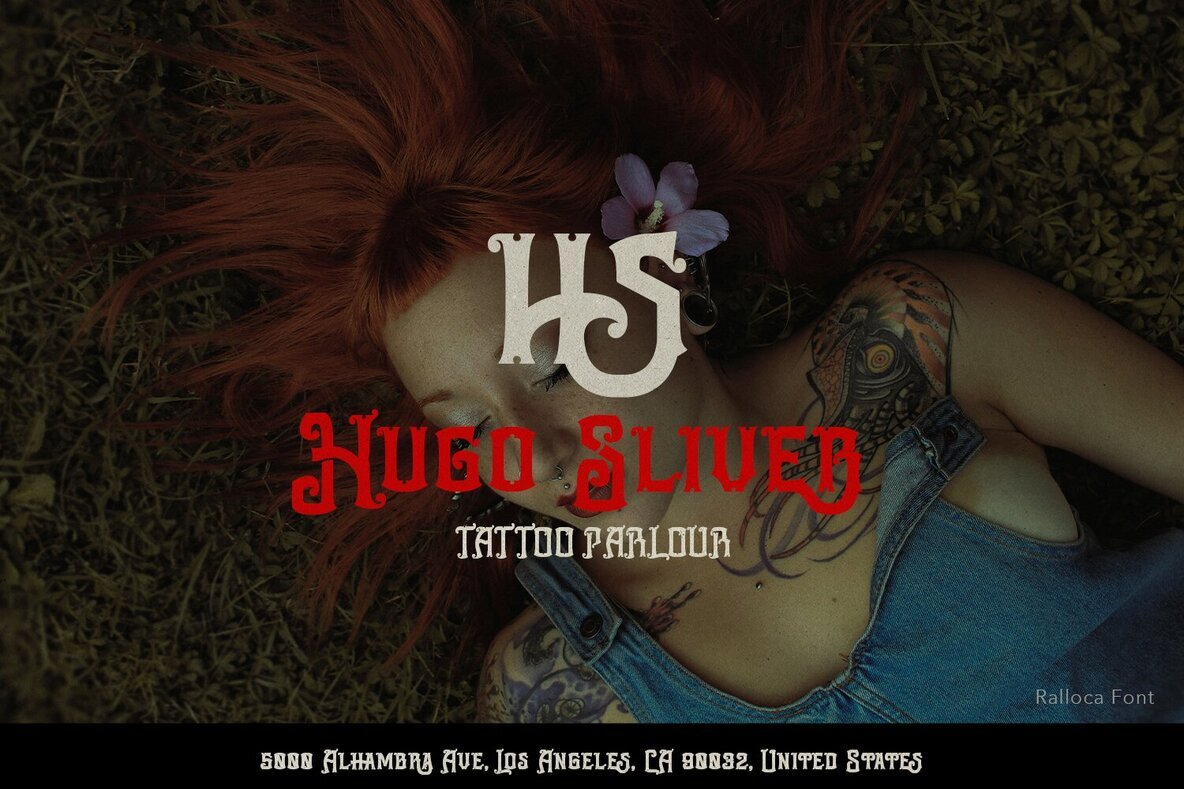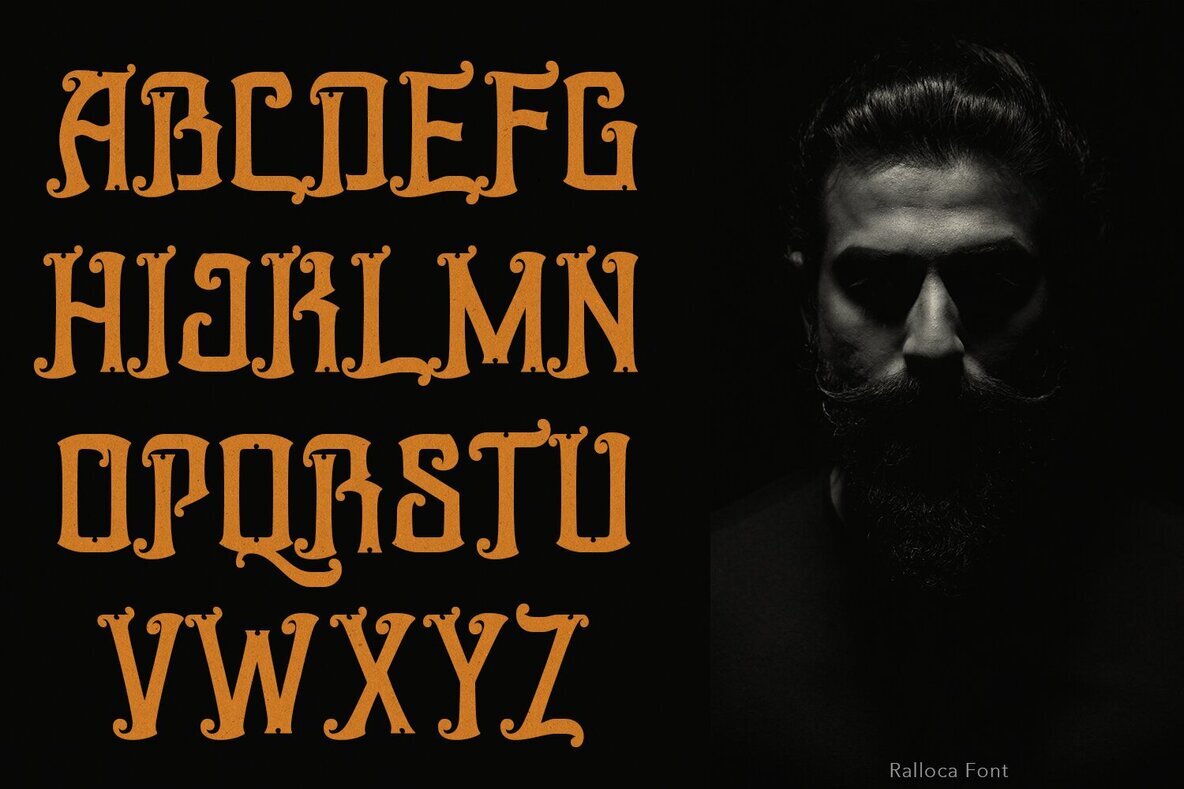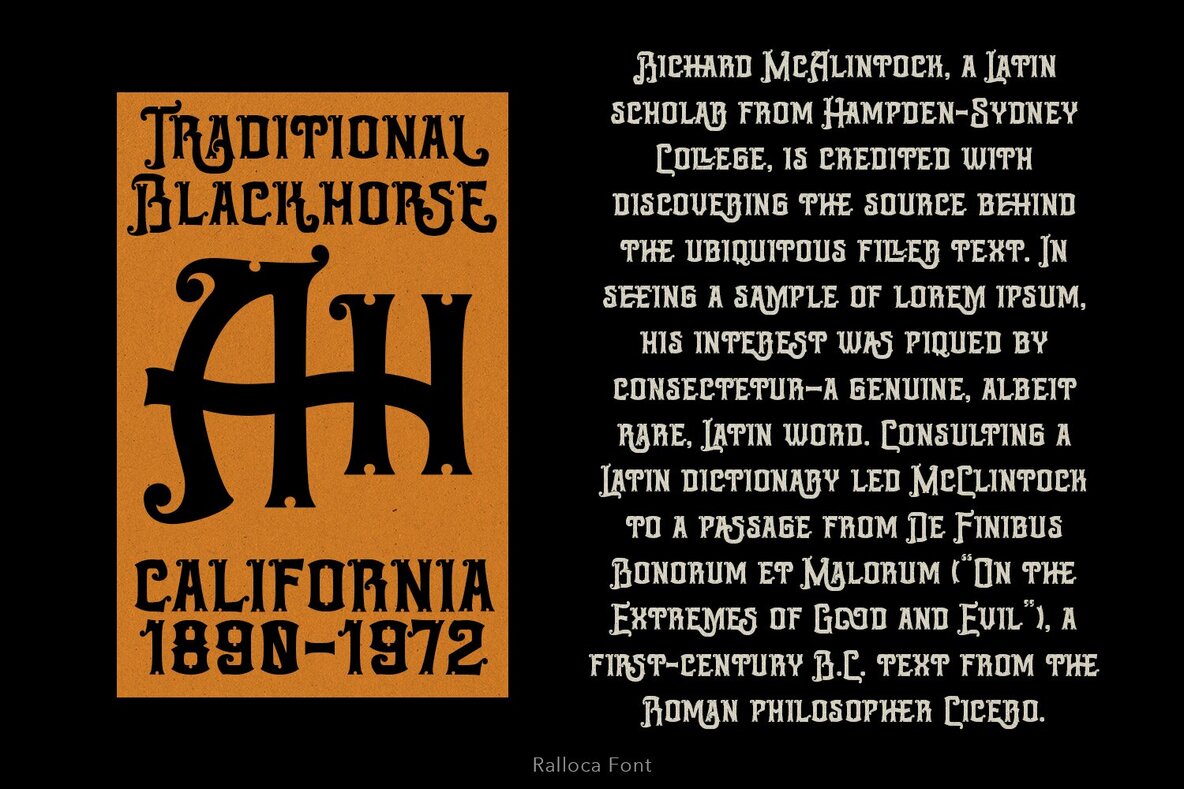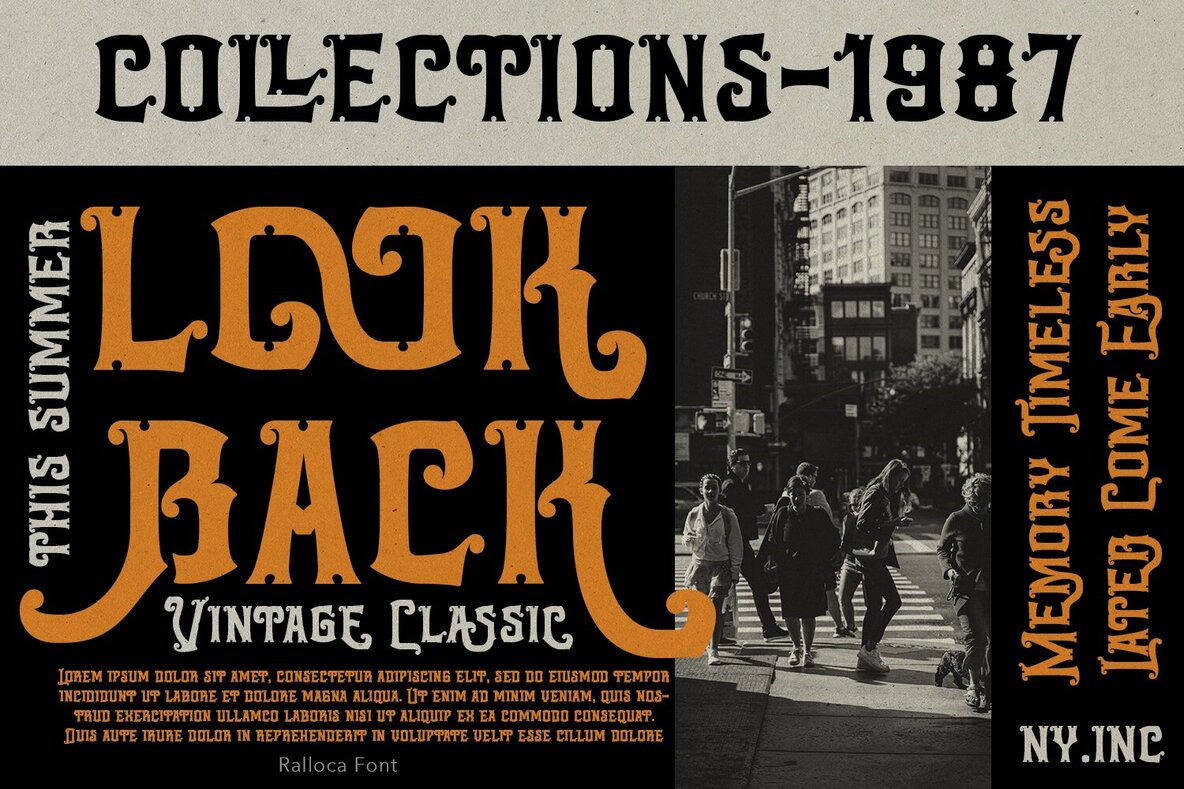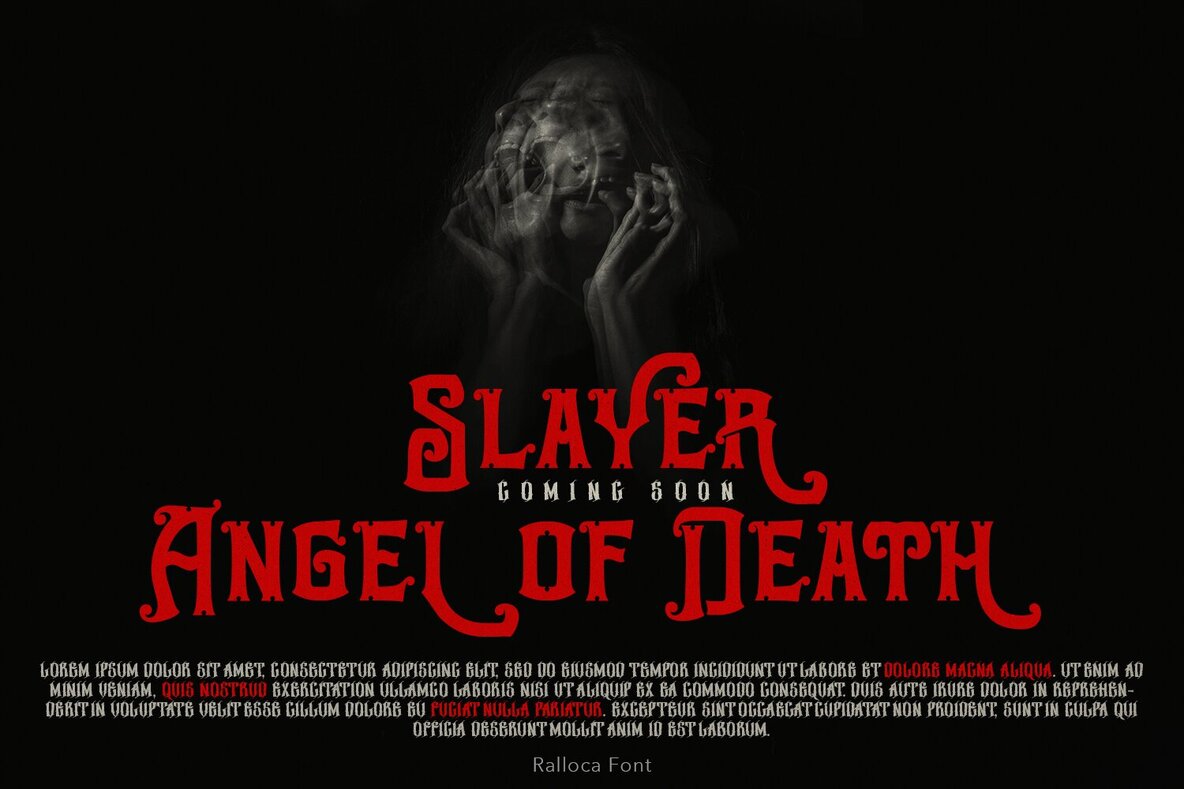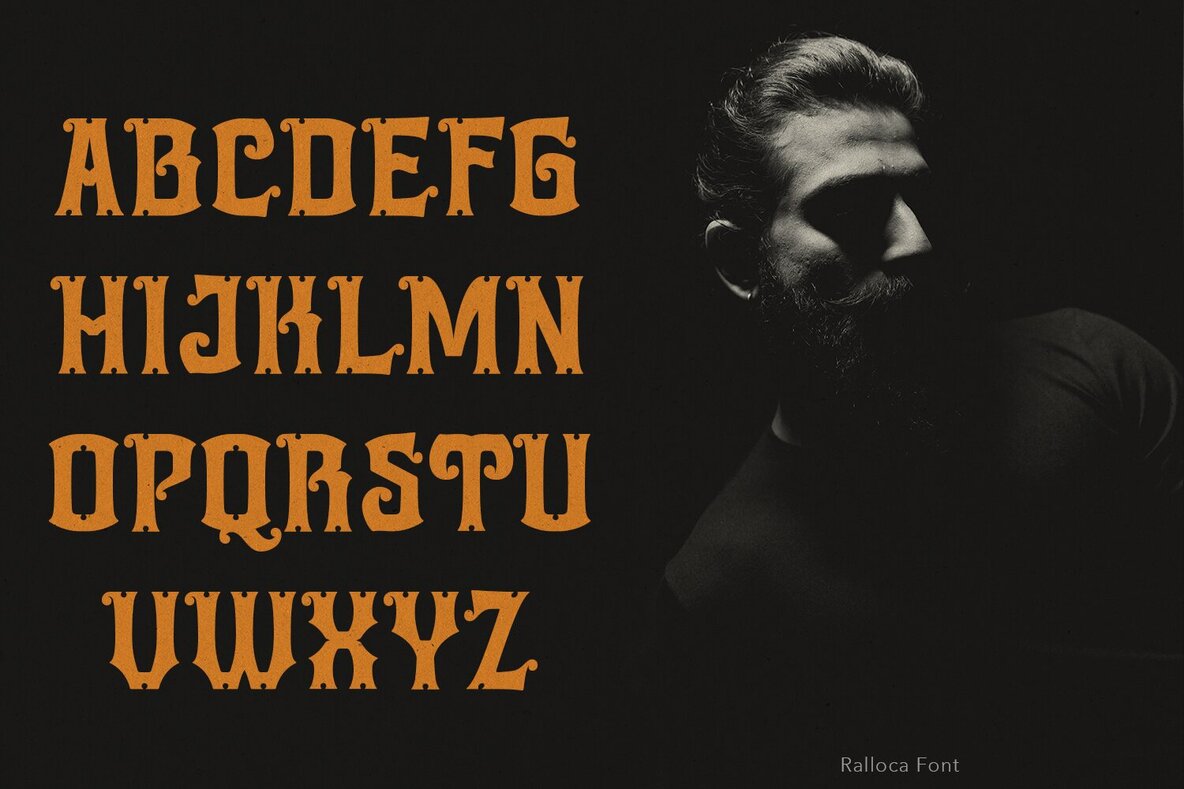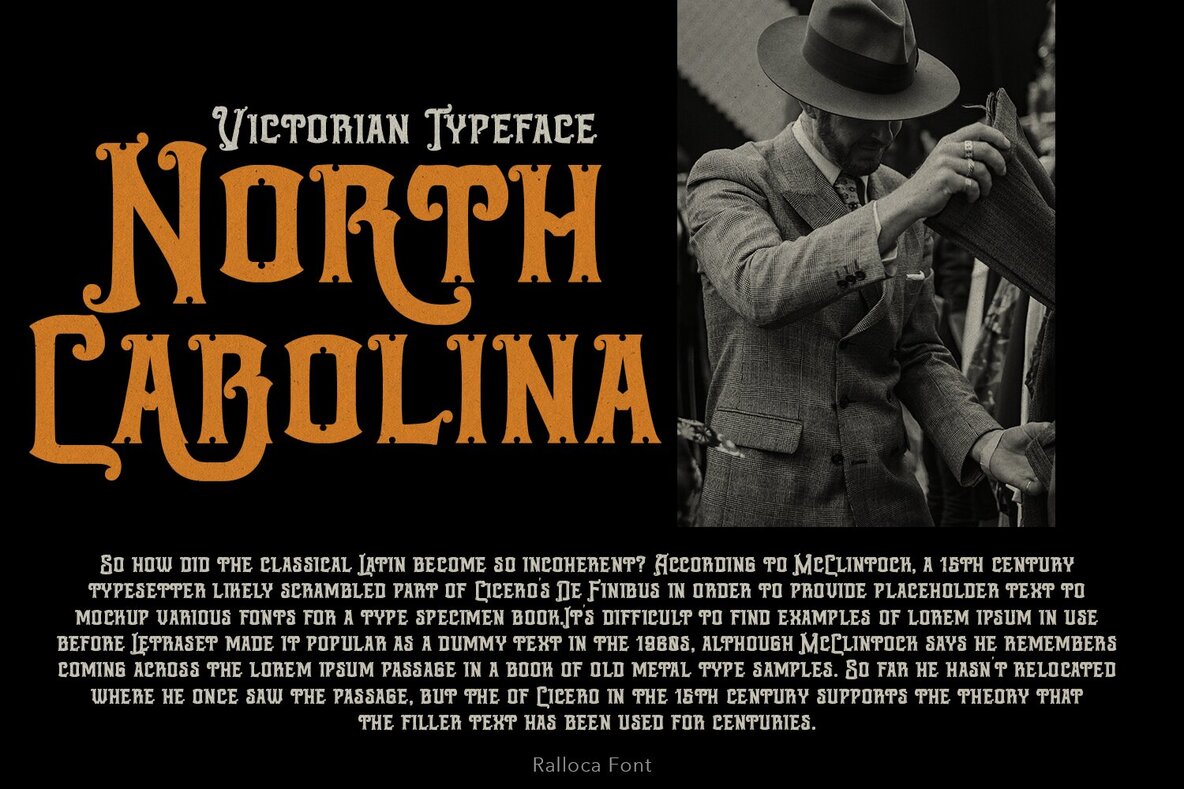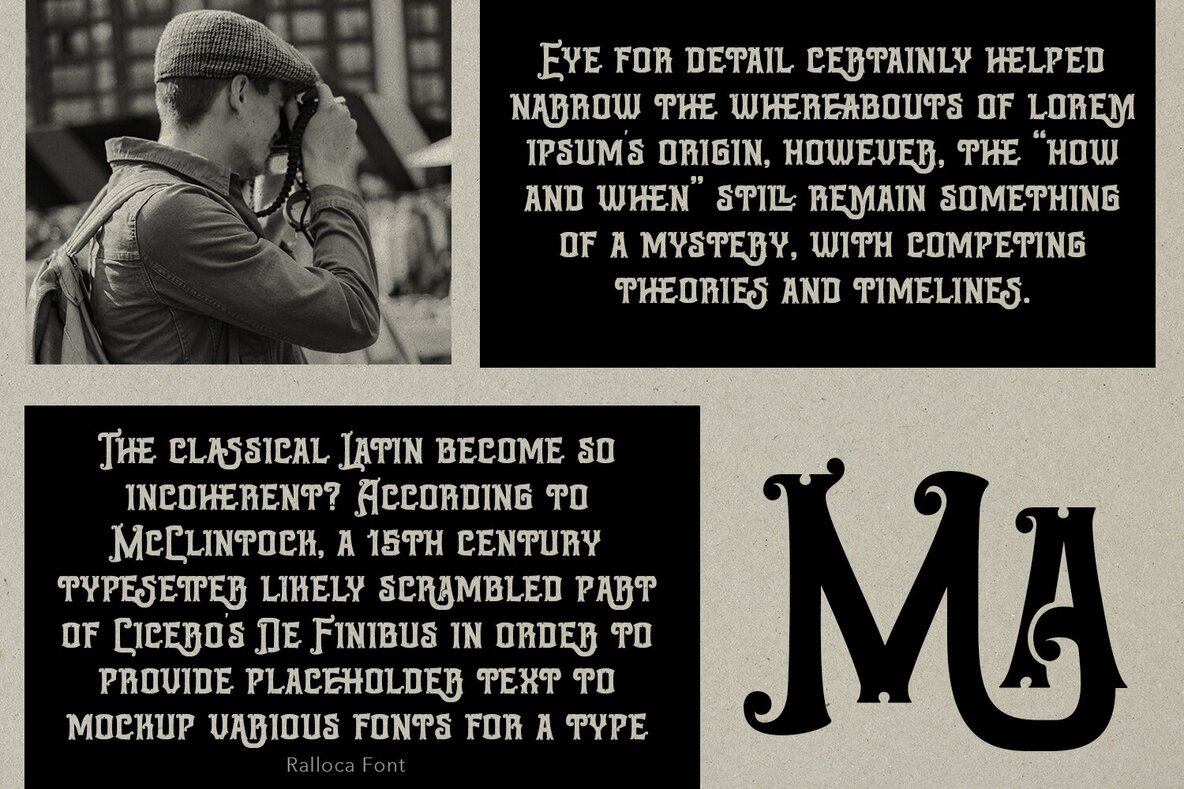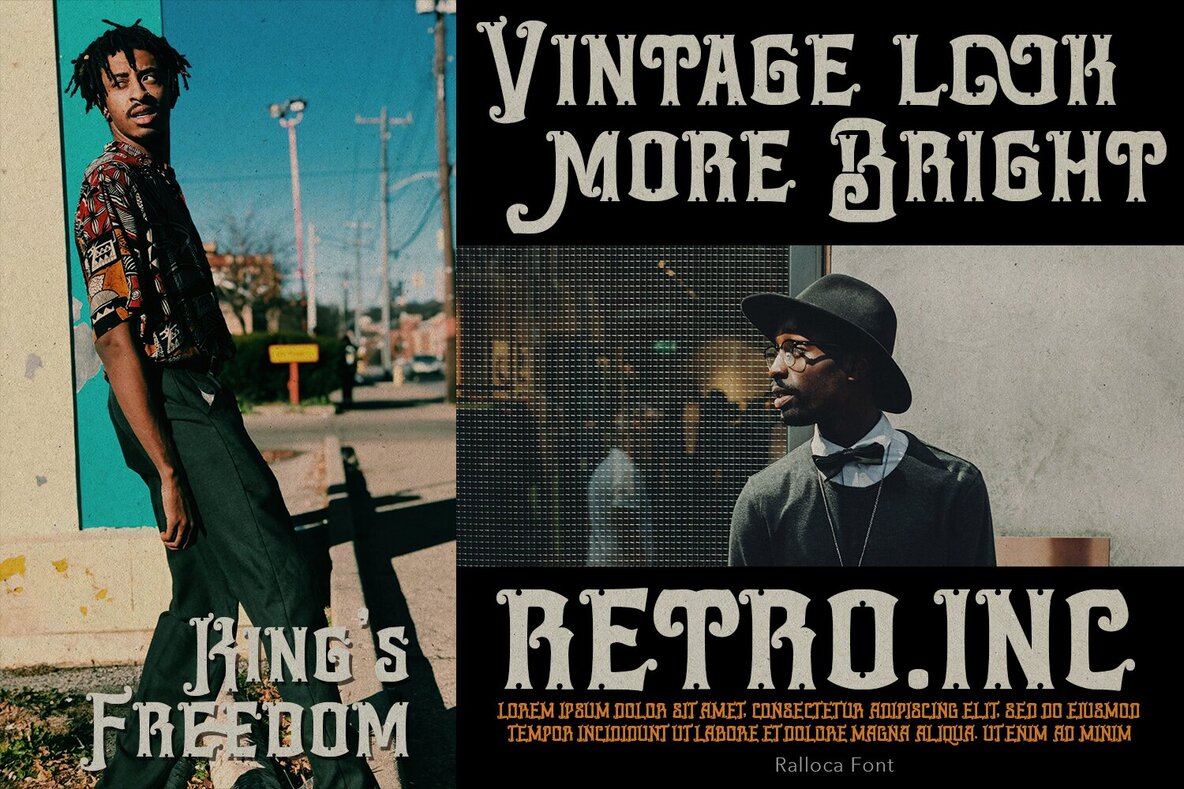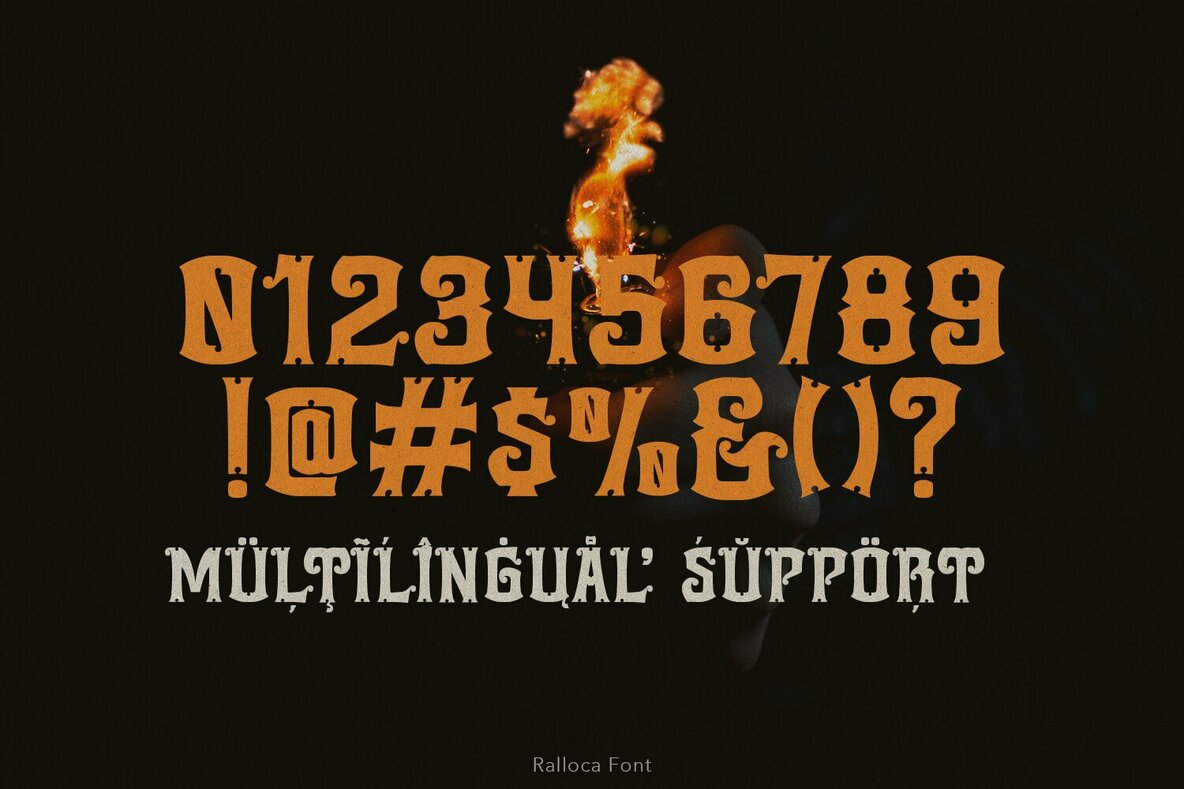
Ralloca Font
"Ralloca" is an all-caps font that exudes an elegant and classic vibe, inspired by 19th-century typography, old fancy lettering, vintage illustration, and Victorian calligraphy. This thoughtfully designed typeface is ideal for various display purposes, adding a touch of vintage sophistication to your product designs. Whether used on book covers, product labels, logos, badges, drink bottles, tattoo shops, coffee shops, fashion products, or wedding invitations, Ralloca brings a timeless elegance and luxurious feel to any project.
With its refined aesthetic and vintage appeal, Ralloca is perfectly suited for designers looking to create a high-end, nostalgic look. The font's all-caps style enhances readability and impact, making it an excellent choice for branding and promotional materials that require a distinctive and elegant presentation. Elevate your designs with the classic charm and heritage of Ralloca, perfect for blending old-world elegance with contemporary applications.